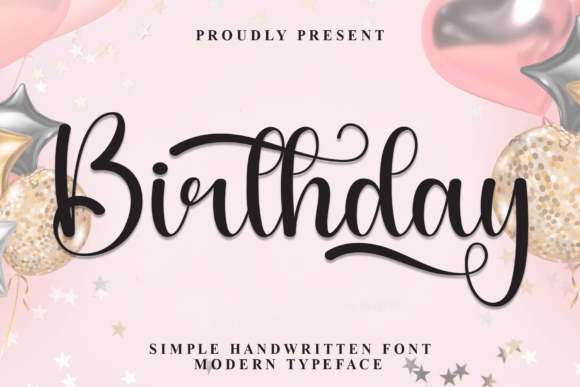
The Perfect Script for Your Special Day
There’s something magical about brainstorming creative ideas for a friend’s birthday – the laughter, the brainstorming sessions, and the excitement to make it a memorable day. As you start thinking about the perfect gift or party theme, the visual identity of your celebration often takes center stage. This is where a beautiful font like the Birthday Font comes in – a stylish handwritten script that adds a touch of elegance and modernity to your design.
Whether you’re designing invitations, social media graphics, or branding materials, the Birthday Font is an ideal choice. Its flowing strokes and organic curves bring warmth and sophistication to any project, making it a valuable asset for designers who want to add a personal and refined touch to their work.
Birthday Font Key Features
- Unique Characteristics: The Birthday Font is designed to resemble handwritten birthday messages, with a playful and celebratory feel. Each letter is carefully crafted to convey a sense of joy and festivity.
- Font Style: The font is a cursive, script-style font, perfect for adding a personal touch to birthday cards, invitations, and other celebratory materials.
Birthday Font Review
As a designer, I was excited to try out the Birthday Font, and I have to say, it’s a mixed bag. ✨ Here are some things that work well:
- Fun and playful vibe: The Birthday Font is perfect for adding a celebratory feel to your designs, whether it’s a birthday invitation or a social media post.
- Wide range of styles: The font comes in multiple styles, from bold and bright to cursive and elegant, giving you plenty of options to choose from.
- Easy to read: Despite its playful nature, the font is still easy to read, making it a great choice for body text as well as headlines.
- Limited customization options: While the font comes in multiple styles, you’re limited in terms of customizing the font itself, which can be a drawback for designers who like to get creative.
- Not suitable for formal designs: While the Birthday Font is perfect for casual designs, it’s not the best choice for formal or professional designs, where you may want a more serious or elegant font.
Overall, the Birthday Font is a fun and playful addition to any designer’s toolkit. While it may not be the best choice for every project, it’s a great option for adding a celebratory feel to your designs. With a little creativity, you can use it to create some truly amazing designs.